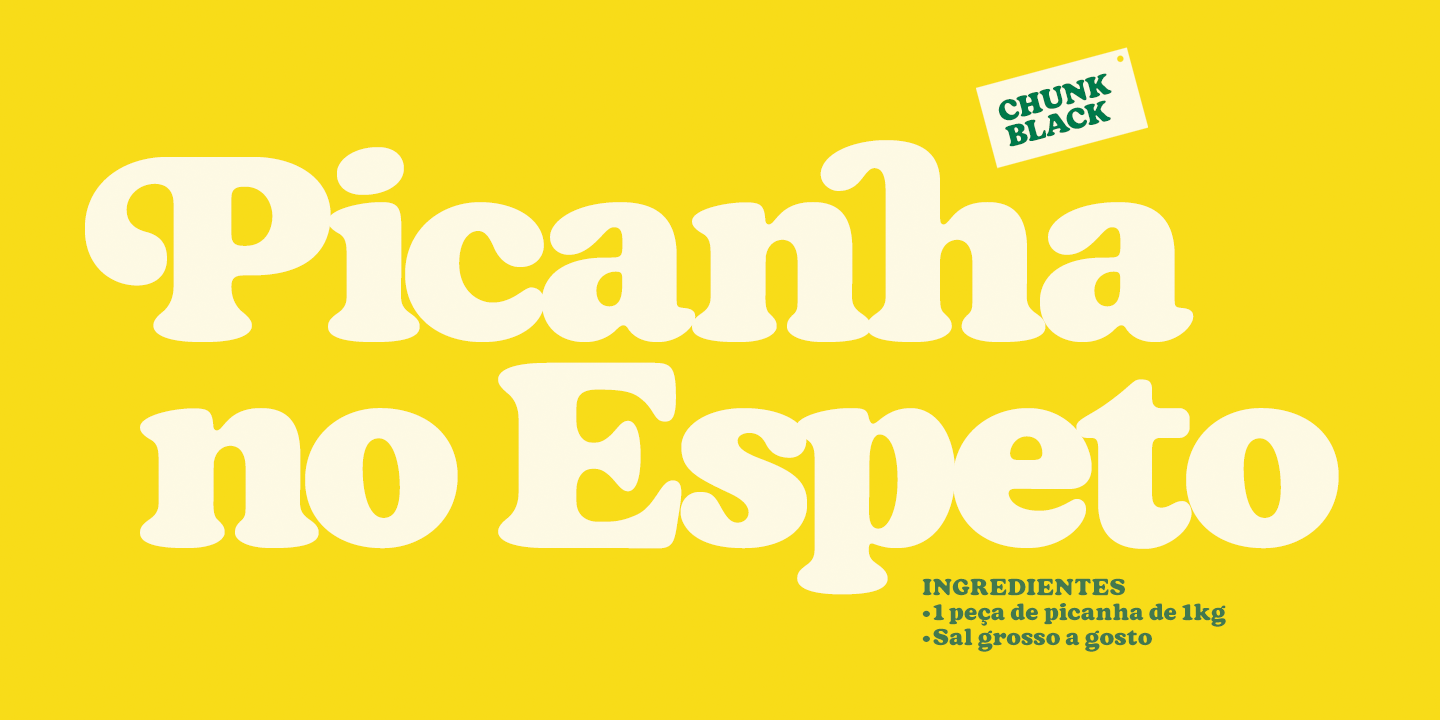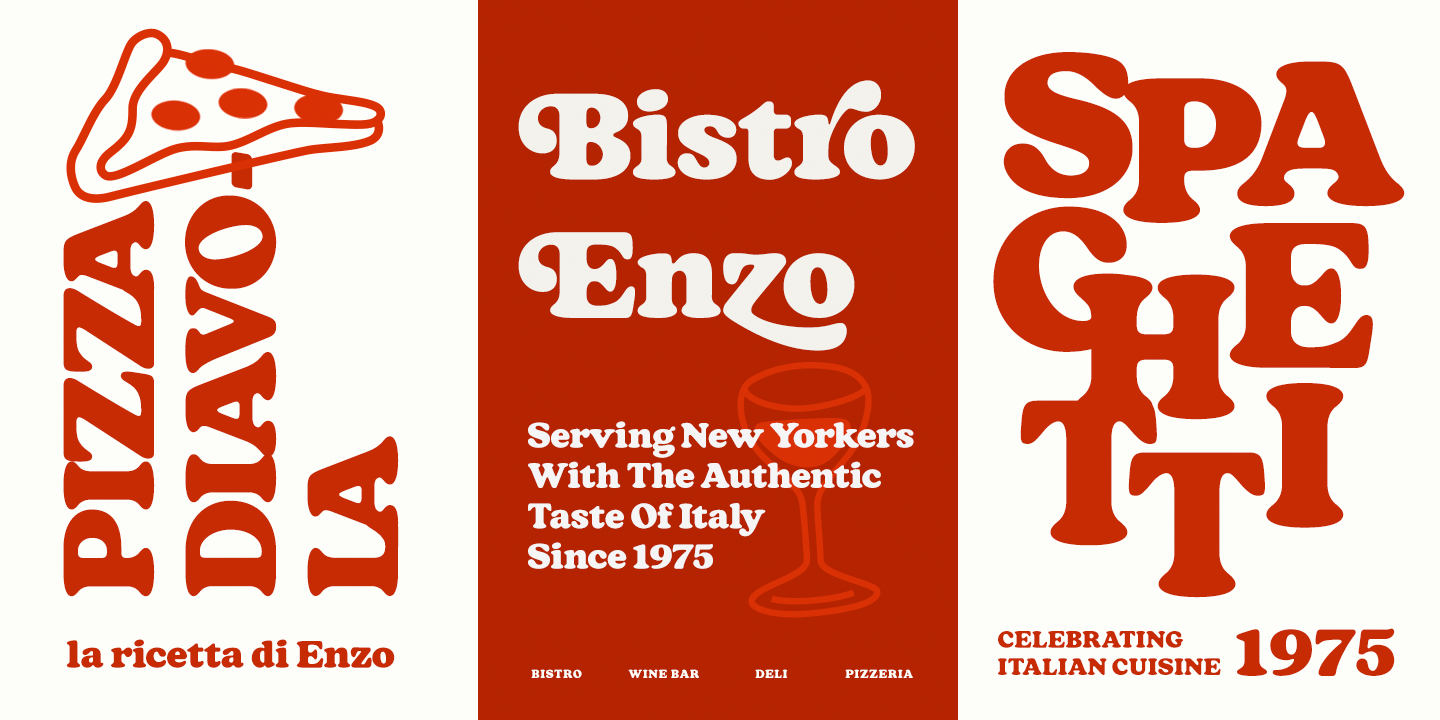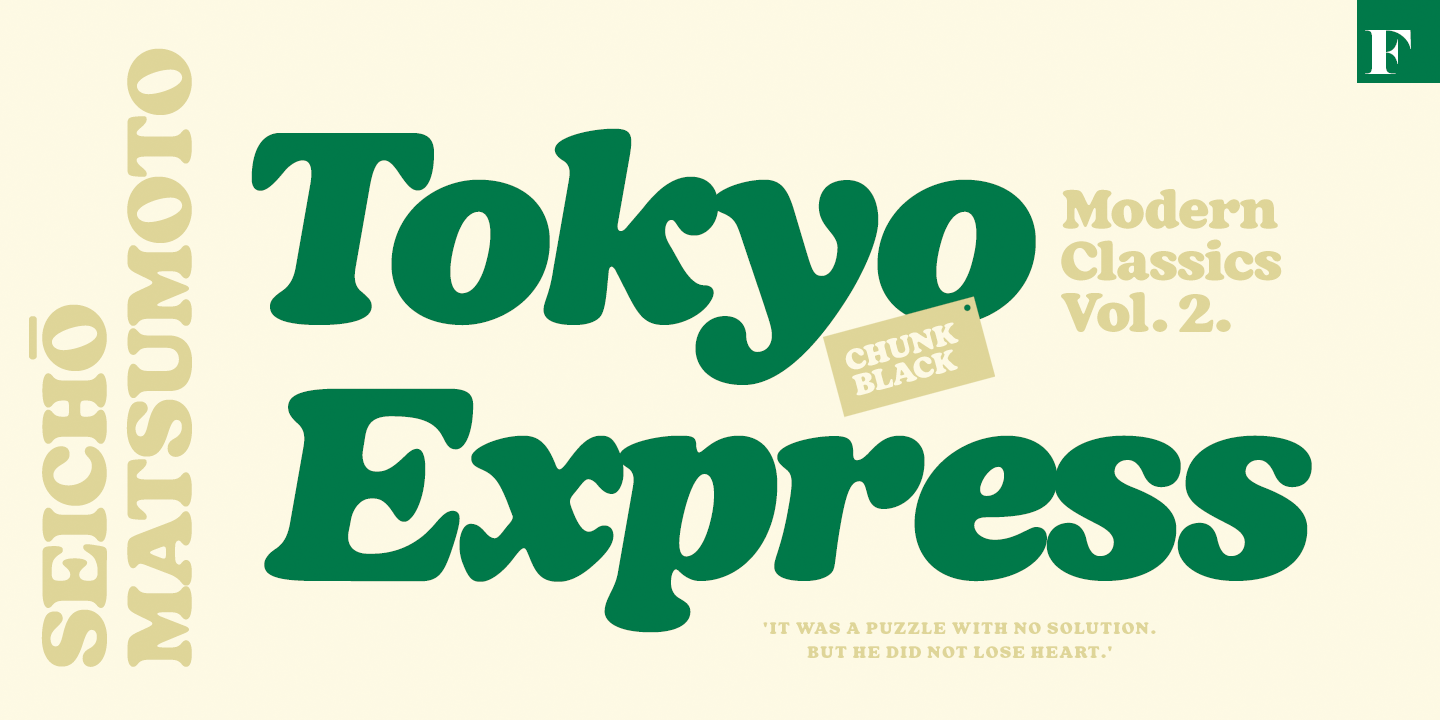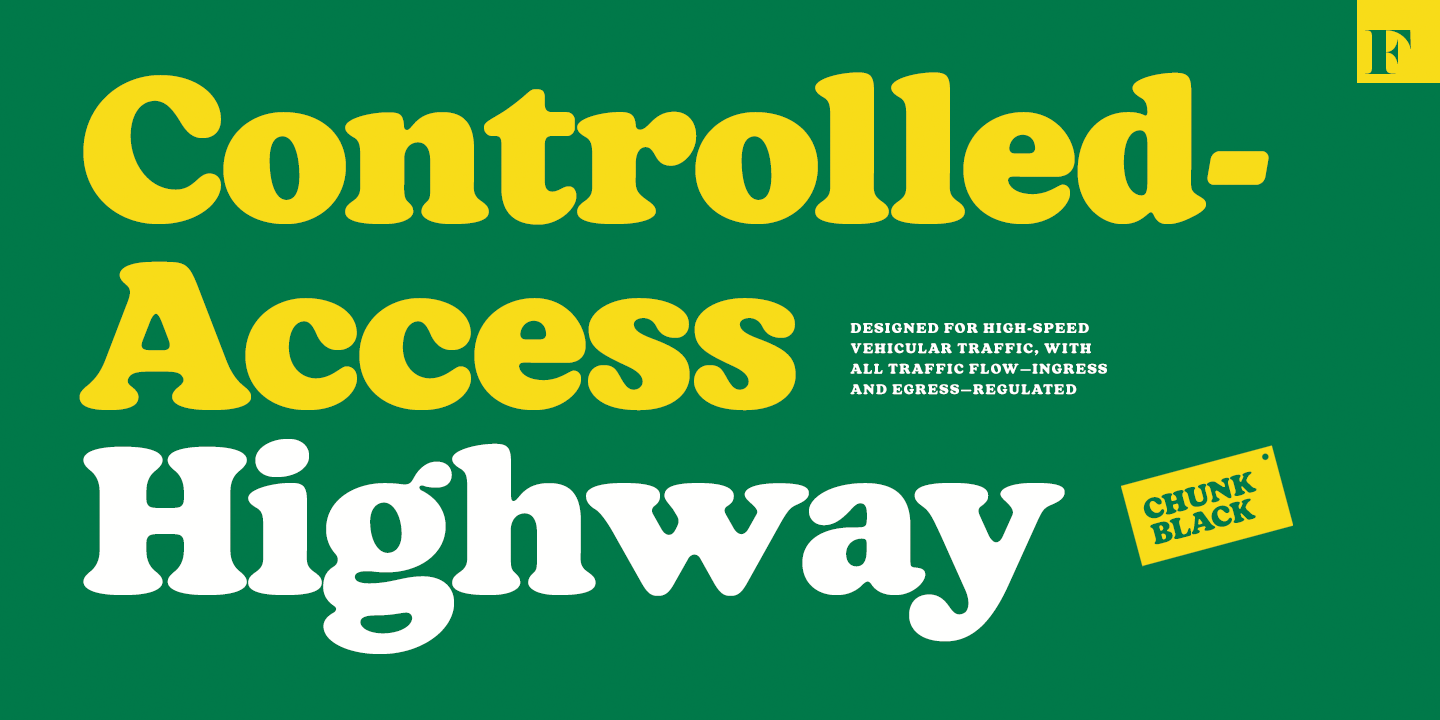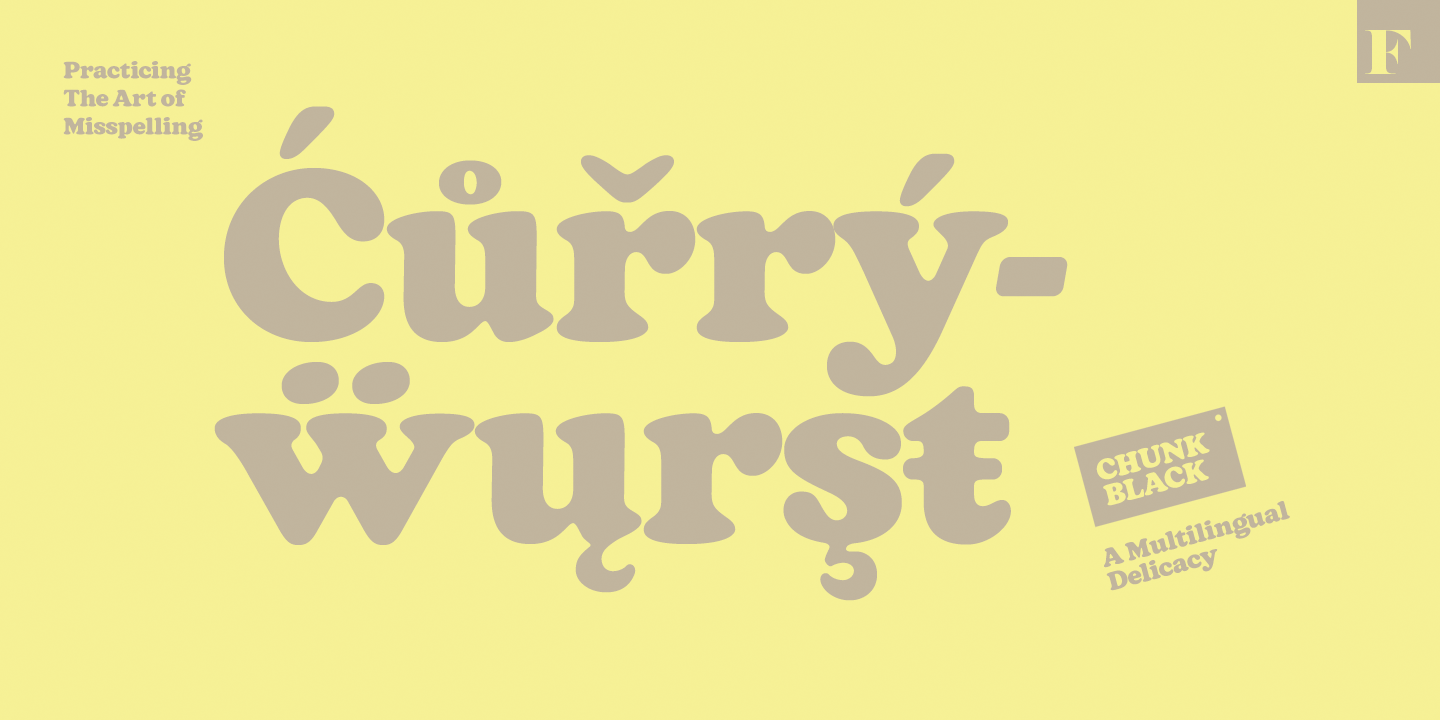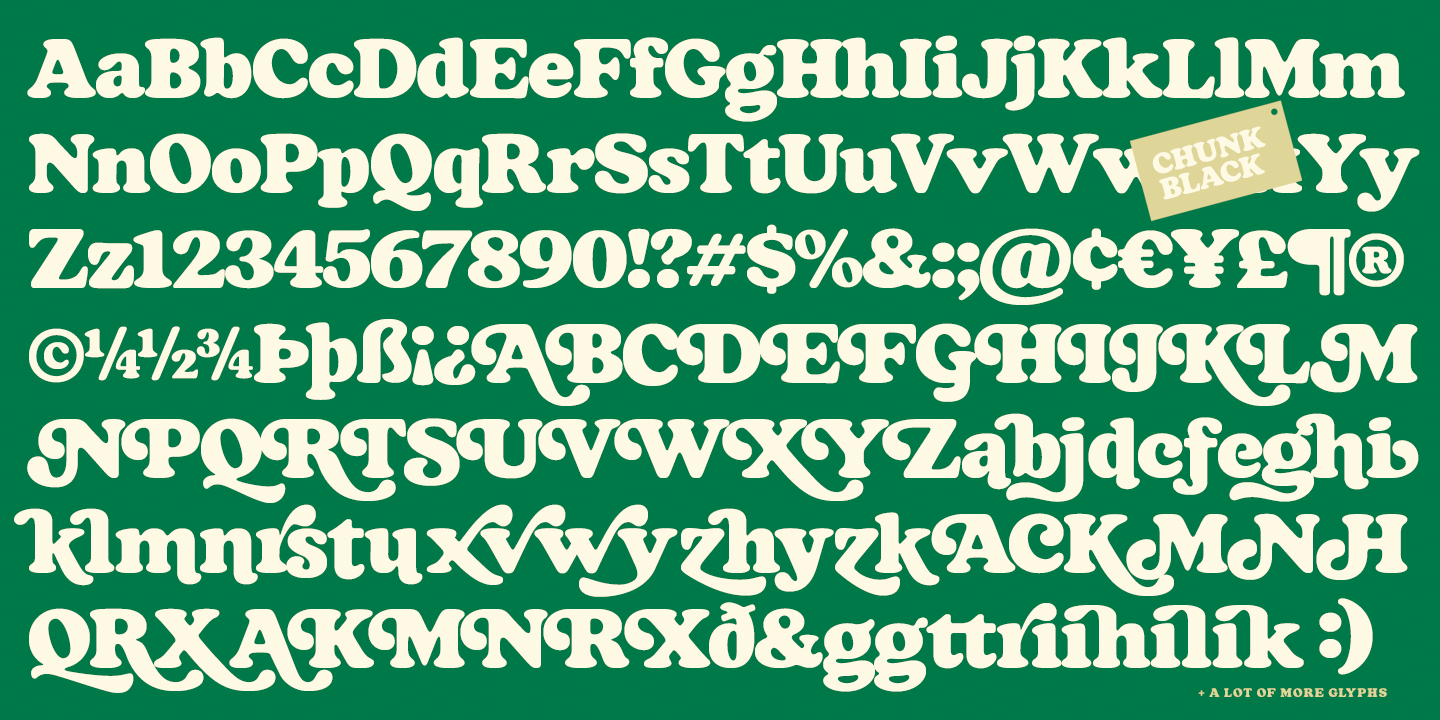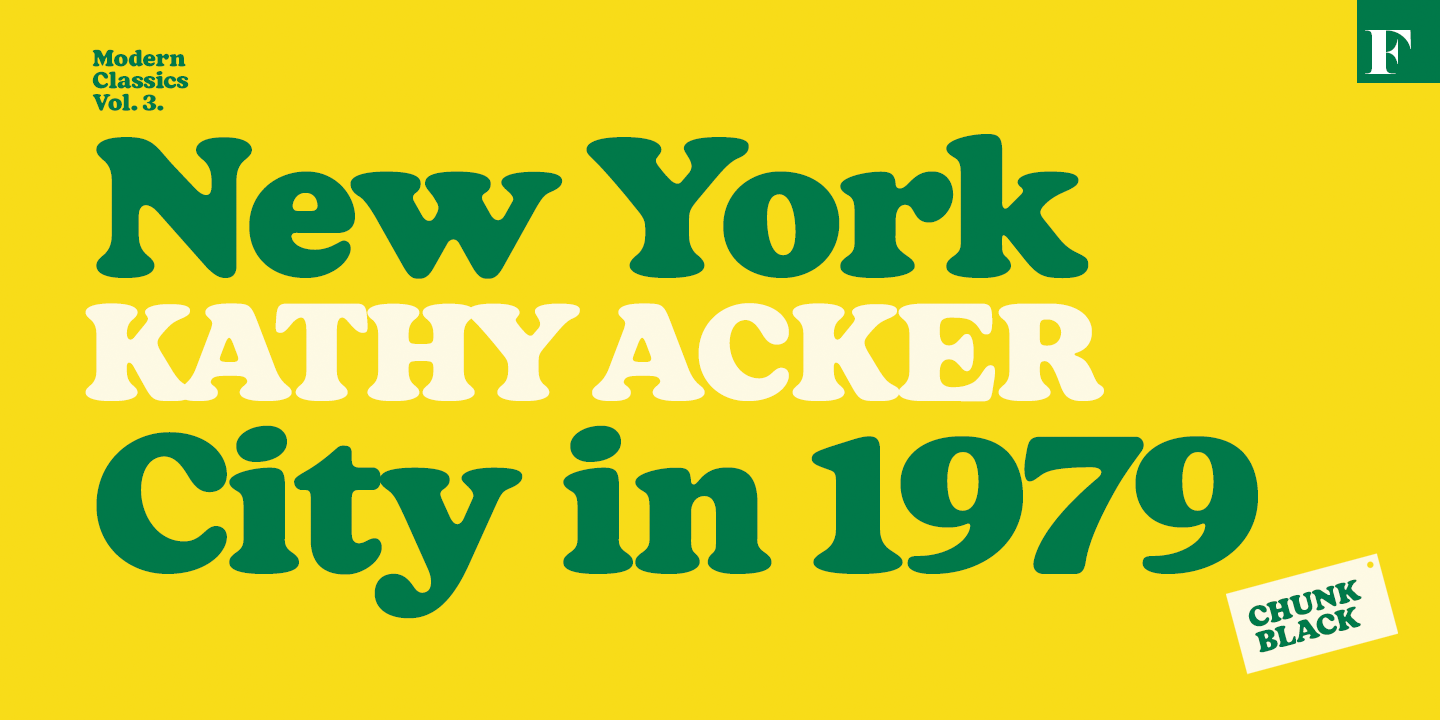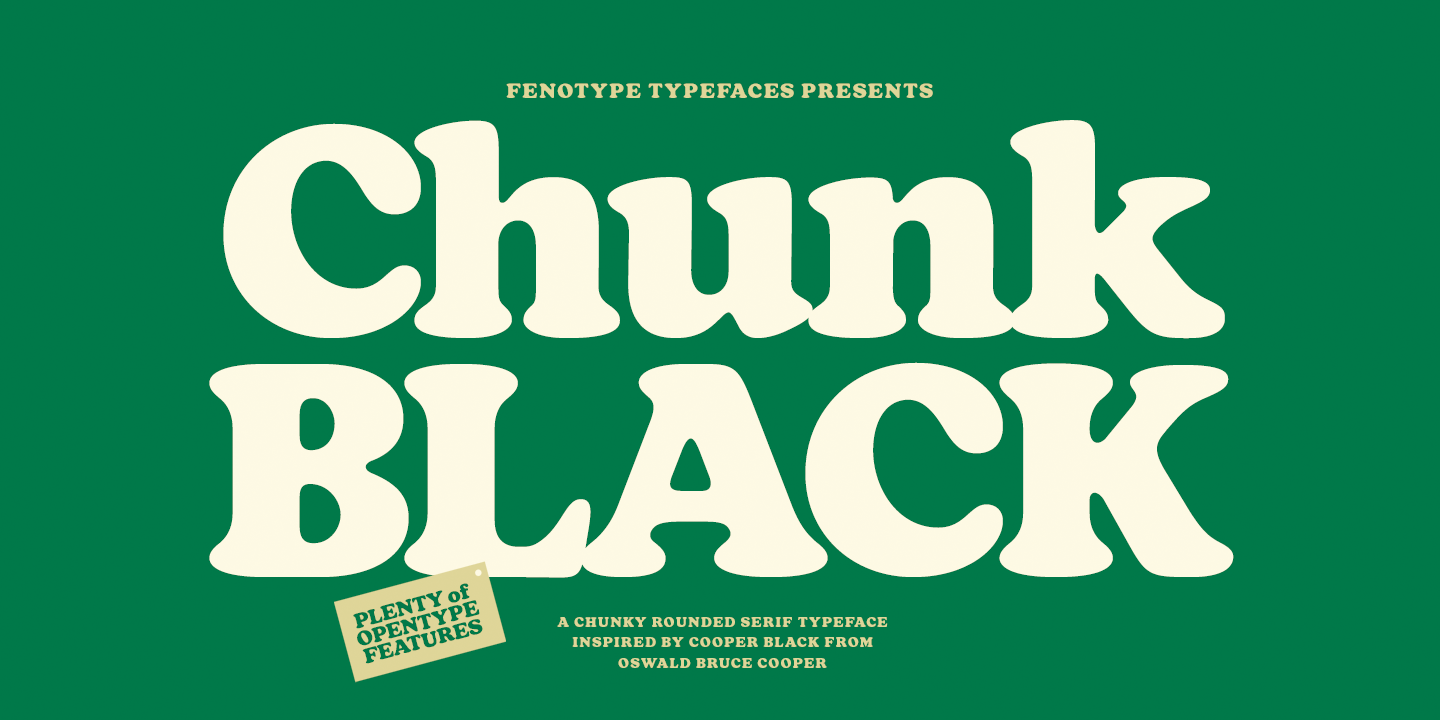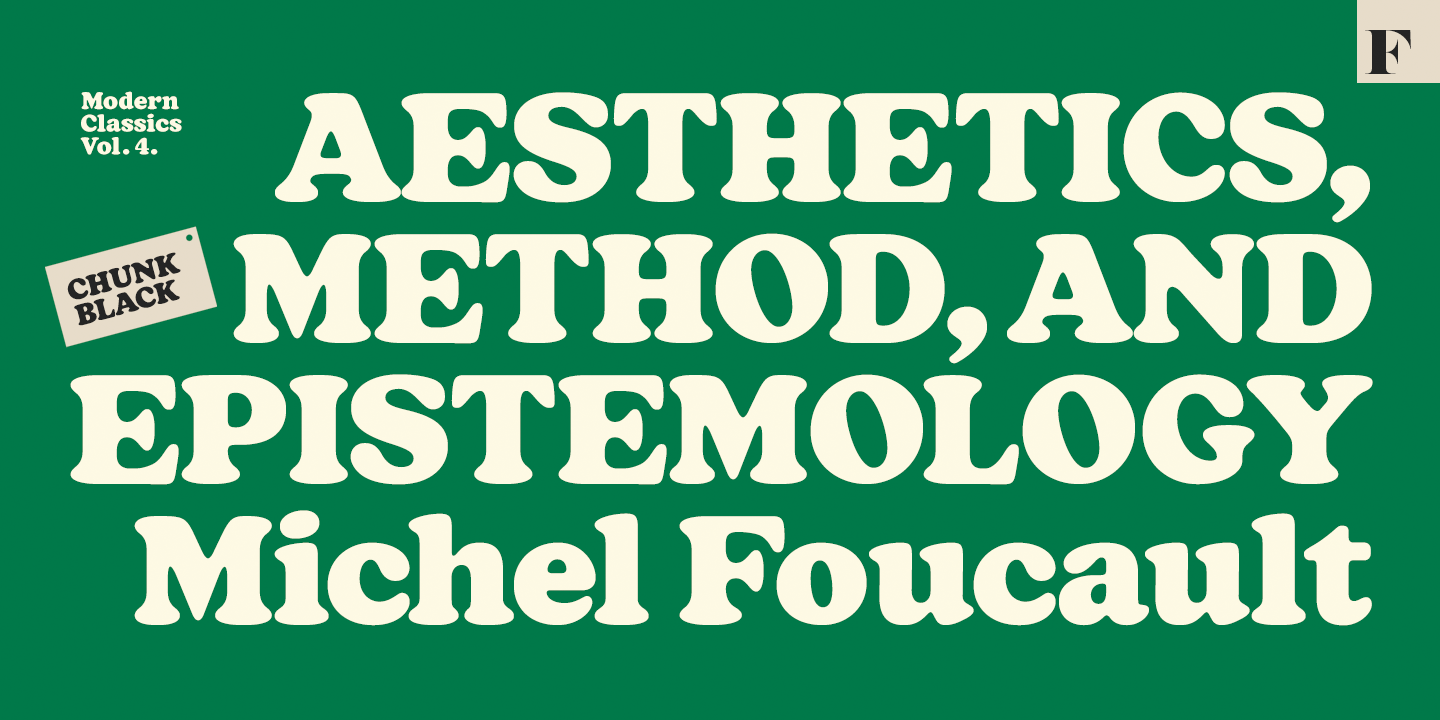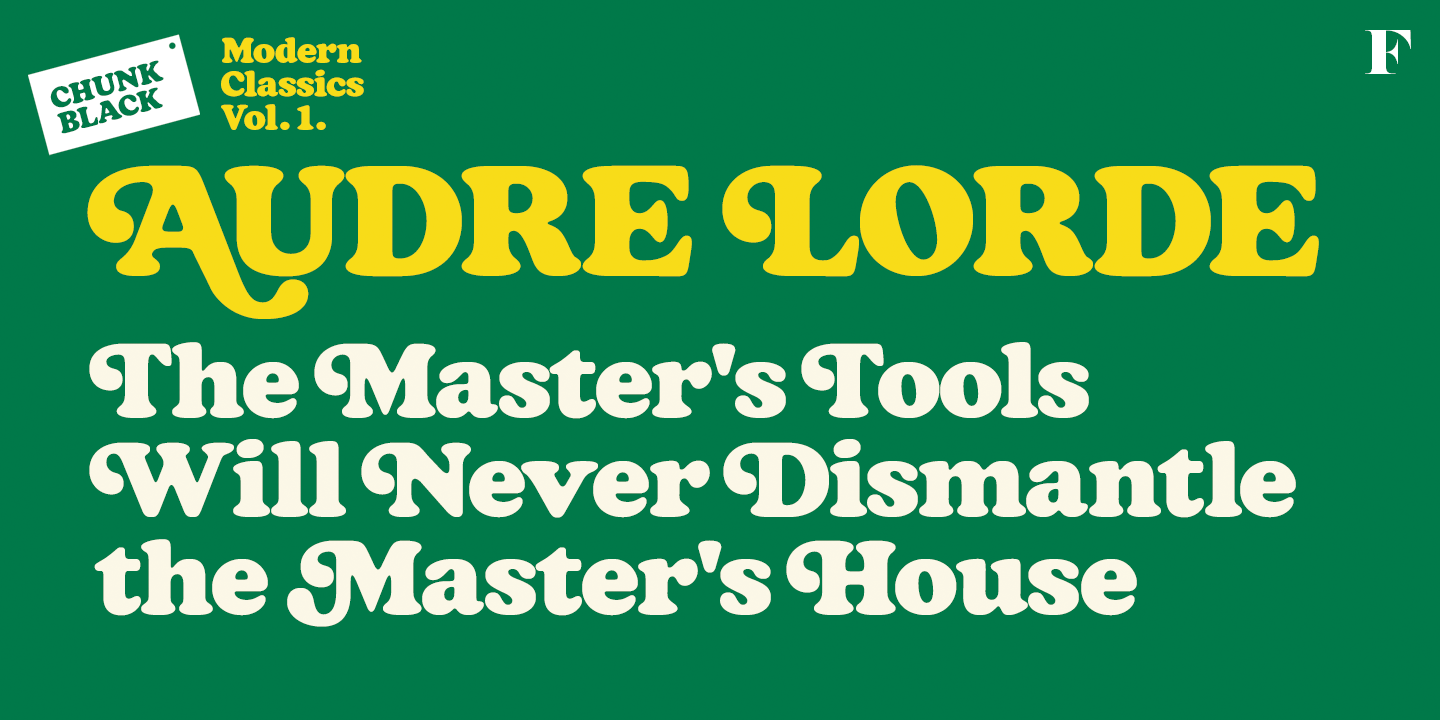
Inspired by the more than hundred years old classic Cooper Black, Chunk Black features a hefty character with rounded serifs and a soft yet sturdy overall appearance. Chunk Black provides a timeless and friendly feel and it’s very suitable for product and packaging design and any kind of display purposes from music business to restaurant menus and from t-shirts to band logos. Chunk Black is equipped with several OpenType -features and a total number of 87 alternate characters, set in Swash, Stylistic and Titling Alternates and Discretionary Ligatures.